The newly released Dubai Font has accounts on Twitter and Instagram
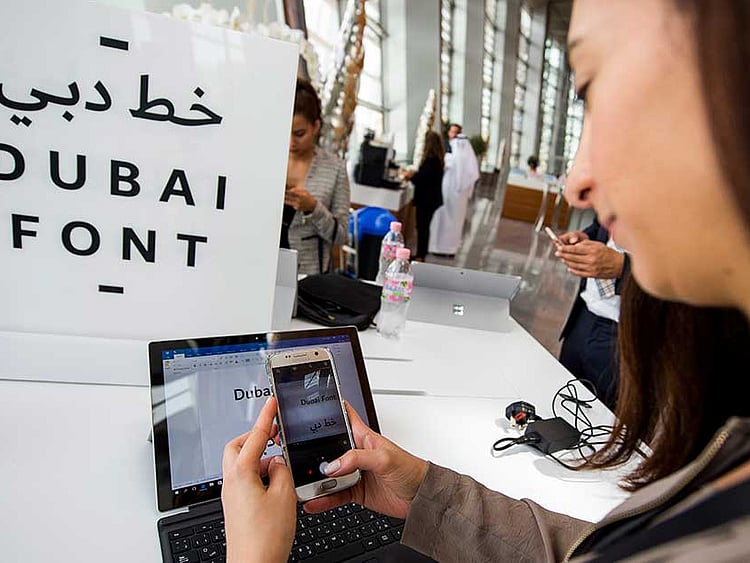
Dubai: Social media accounts are a must for every company or entity out there in today’s global age.
And that policy has now been implemented by this unique font.
On Sunday, the Dubai Font was launched by Shaikh Hamdan Bin Mohammad Bin Rashid Al Maktoum, Crown Prince of Dubai and Chairman of the Executive Council, and it already has its very own accounts on Twitter and Instagram under the username @DubaiFont.
These media accounts are probably the first for a font, and so far the social media platforms have been used to announce the font’s launch.
The Dubai Font, according to Dubai’s Media Office, mirrors the city’s qualities and promotes its global standing, and includes 23 languages.